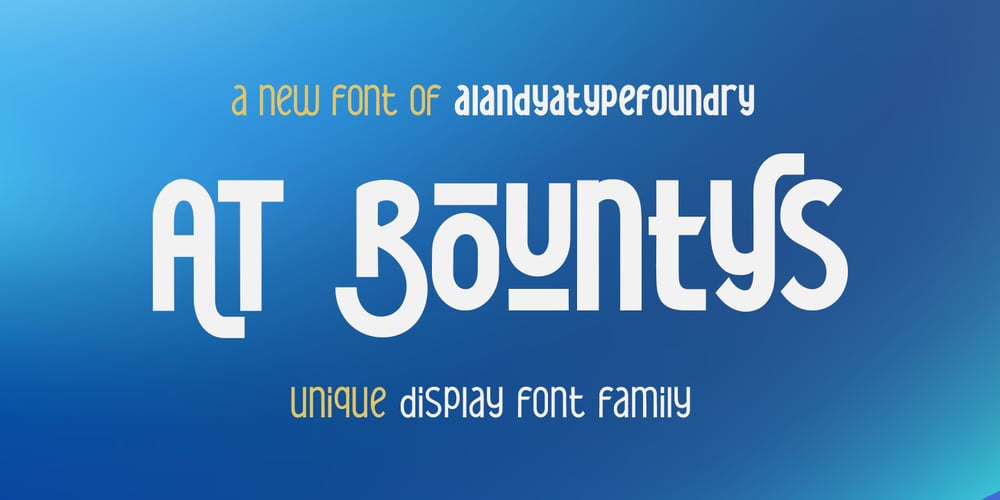
AT Bountys
AT Bountys font
AT Bountys Font Family was designed by Cut Nurfajarlia and published by Alandya TypeFoundry. AT Bountys contains 10 styles and family package options. AT Bountys is stylish and beautiful sans serif font with variable file. It will look perfect in photography designs, watermarks, social media posts, advertisements, logos, branding, and various other projects.The main strokes contain small breaks simulating modulated variations on the letterforms, these details are more present on large body sizes. All font versions contain Latin and Cyrillic encoding characters and also ligatures, case-sensitive forms, fractions, oldstyle and finally tabular figures.